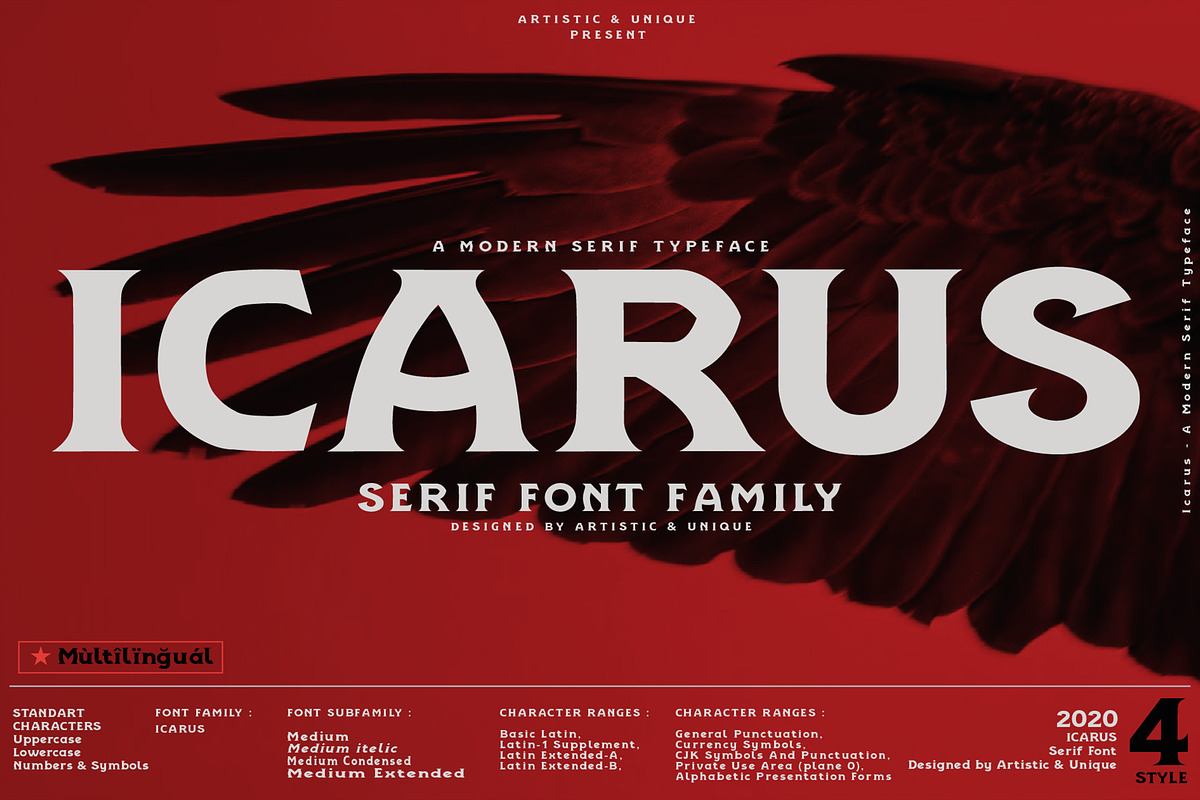
ICARUS - Serif font family Free Download
ICARUS - Serif Font Family Free Download
The ICARUS - Serif Font Family Free Download offers a refined and timeless design, perfect for creating elegant and professional projects. With its classic serif structure and modern touch, this font family is ideal for a wide range of applications, from editorial layouts to website headers, and branding. The versatile range of weights in the ICARUS family ensures that your designs have the flexibility to make a strong impact, whether you’re creating print or digital content. Please be aware that for commercial use, you will need to purchase a license. For testing purposes, feel free to download this font for free and explore its possibilities. If you're looking for a serif font that combines both sophistication and readability, the ICARUS - Serif Font Family Free Download is the perfect choice to elevate your creative work.